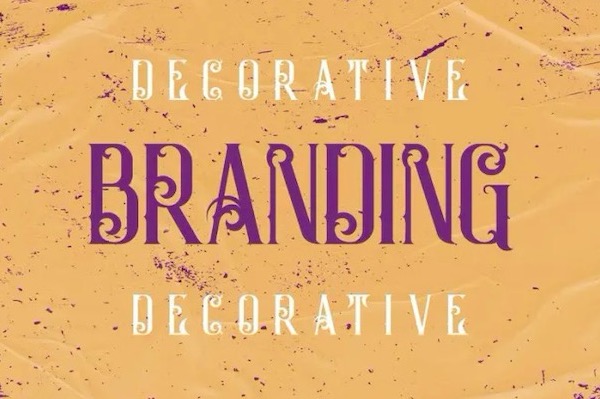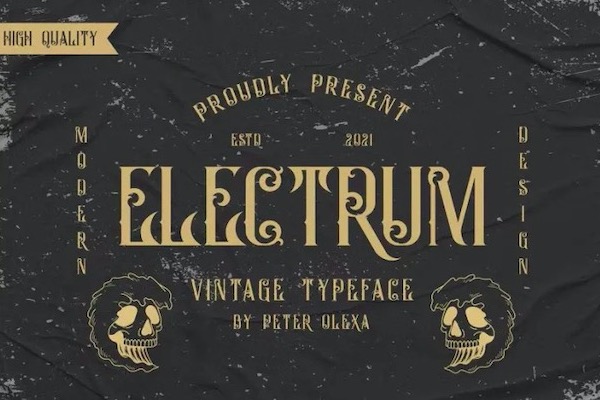
Electrum is an elegant and modern vintage display font that has also a Unique ornamental look. It offers retro typographic harmony for a diversity of contemporary projects, including logos & branding, social media posts, advertisements & product designs.
Electrum Display Font